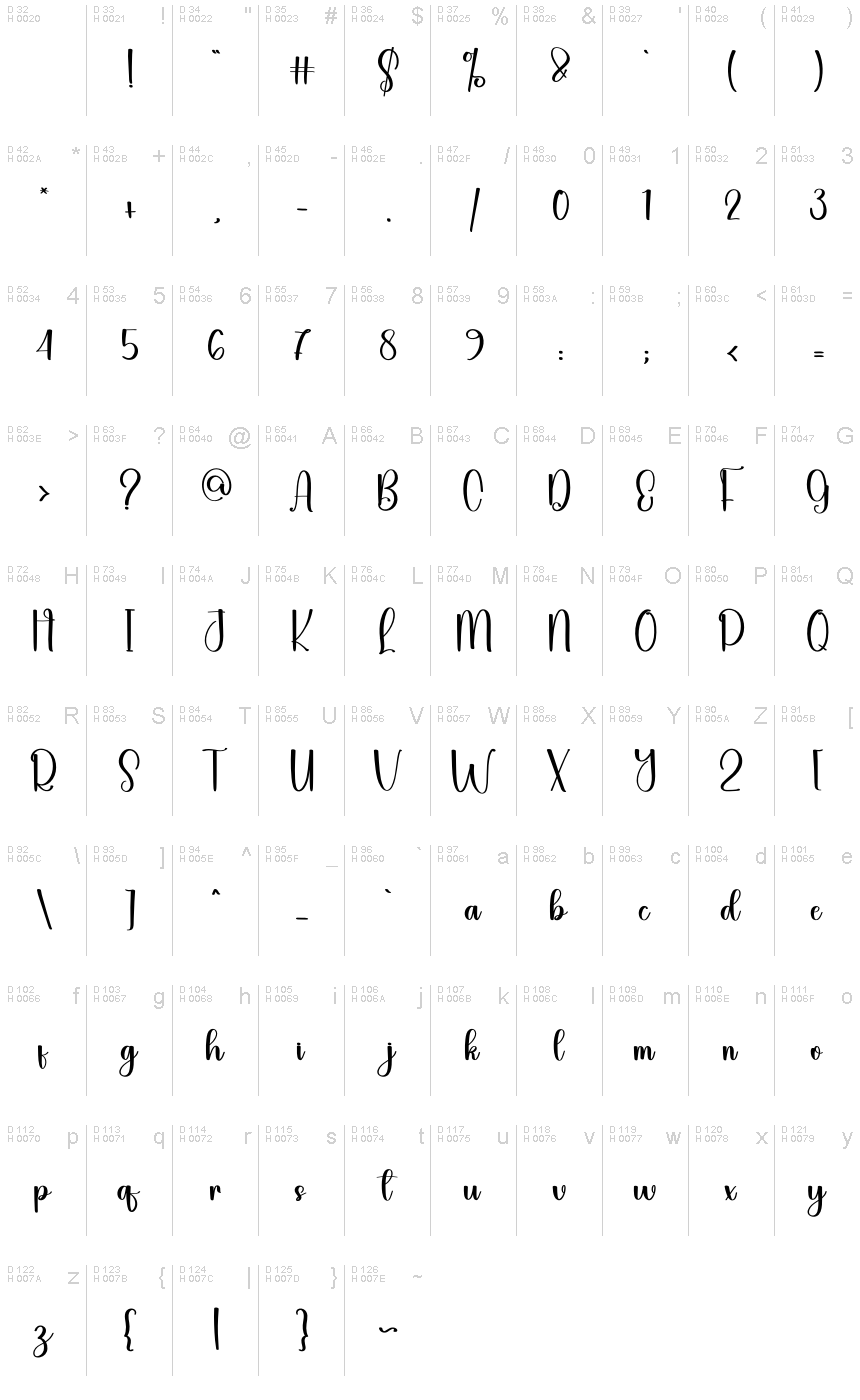
Crafting
Crafting font by Inermedia Studio showcases an elegant handwritten style, perfect for adding a personal touch to your designs. Its fluid strokes and artistic flair create an inviting aesthetic that's both sophisticated and approachable. The generous loops and flowing lines make it stand out, adding character and charm to any project.
Embrace the individuality of Crafting font in your next project and experience how its distinctive handwritten appeal can elevate your work with elegance and ease.